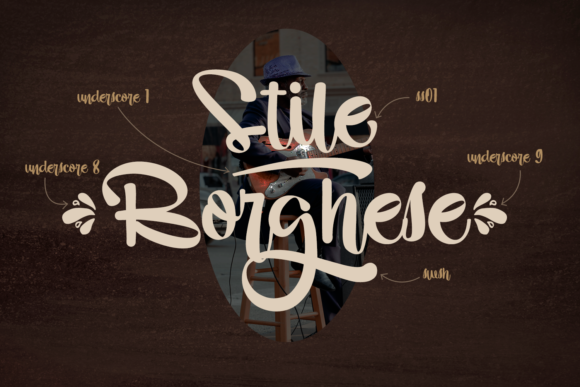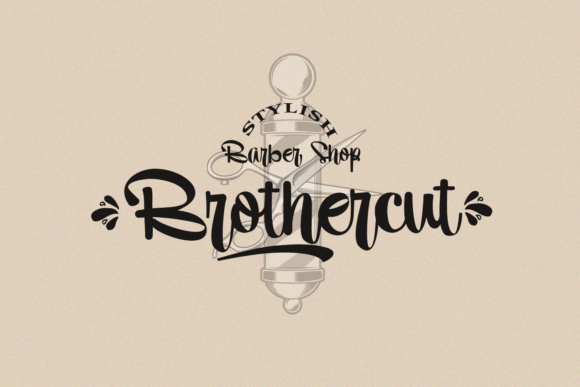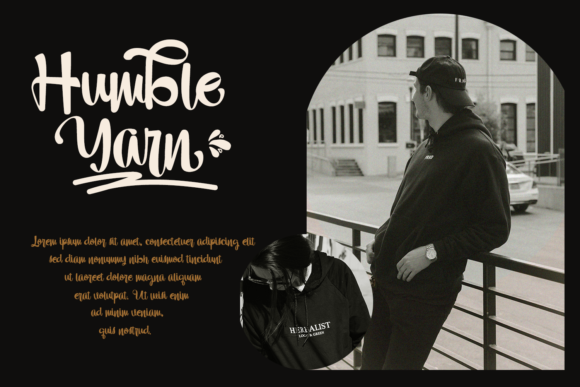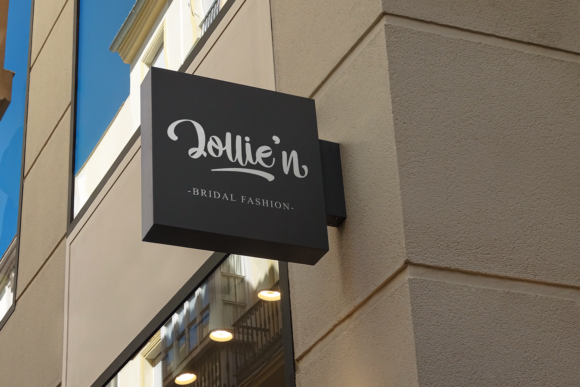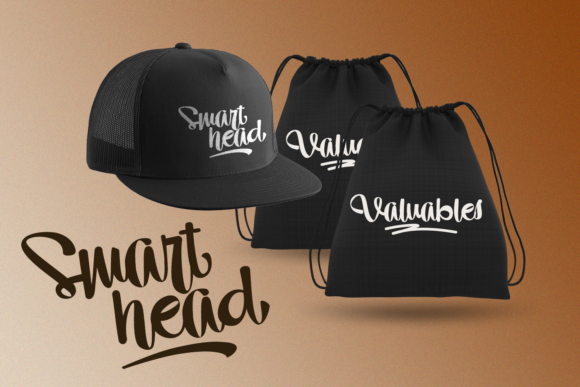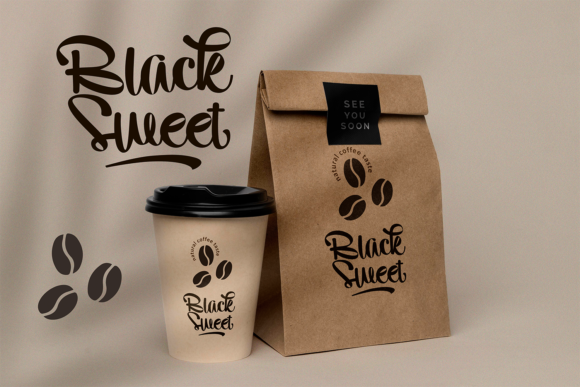
I still remember the design project that led me to discover the beautiful Billiboldy font. I was working on a sophisticated branding project for a luxury client, and I was struggling to find the perfect script font. The client wanted something elegant, yet not too ornate; something that would elevate their brand without overpowering it. After hours of scouring font libraries and testing various options, I stumbled upon Billiboldy. It was love at first sight! 💕
An Honest Review: What I Love and What I Don’t
- ✨ Elegant and sophisticated: Billiboldy is perfect for high-end projects that require a touch of luxury.
- ✅ Balanced and varied: The font’s strokes are not too thin or too thick, making it versatile and easy to read.
- 🎉 PUA encoded: With Billiboldy, you can access all the glyphs and swashes with ease, giving you creative freedom.
The Not-So-Perfect
While Billiboldy is an amazing font, it’s not without its quirks. Here are a few things to keep in mind:
- ⚠️ Limited use in body text: Due to its elegant and cursive nature, Billiboldy might not be the best choice for long-form content.
- 🤔 Some characters may require manual kerning: While the font is generally well-spaced, you might need to adjust the kerning for certain character combinations.
While the true story behind Billiboldy’s creation is unknown, it’s easy to imagine that the designer was inspired by classic calligraphy and elegant typography. The font’s balance and elegance evoke a sense of sophistication and luxury, making it perfect for high-end projects.
A: PUA (Private Use Area) encoding allows you to access glyphs and swashes with ease. This means you can create beautiful, unique designs without having to manually create each character.
Q: Is Billiboldy suitable for body text?
A: While Billiboldy is an elegant font, it’s not ideal for long-form content. Its cursive nature and elegant strokes make it better suited for headlines and titles.